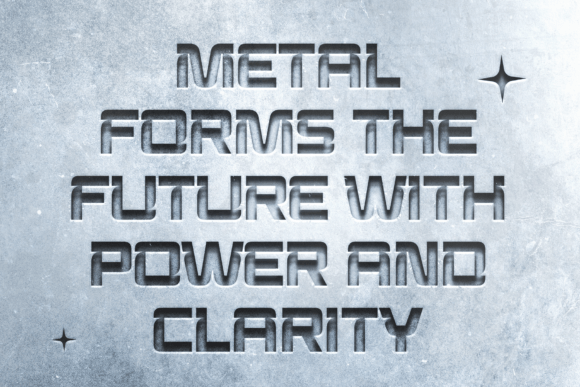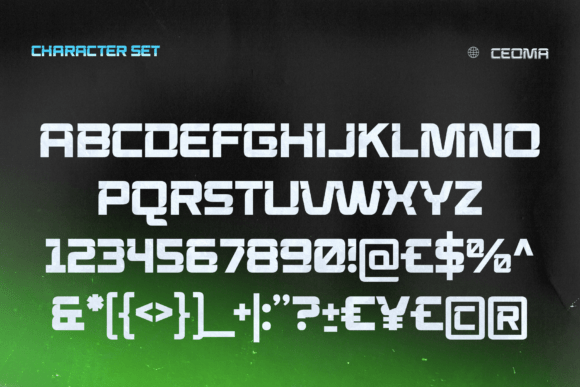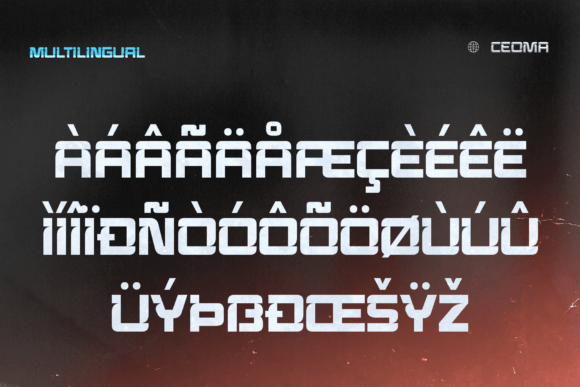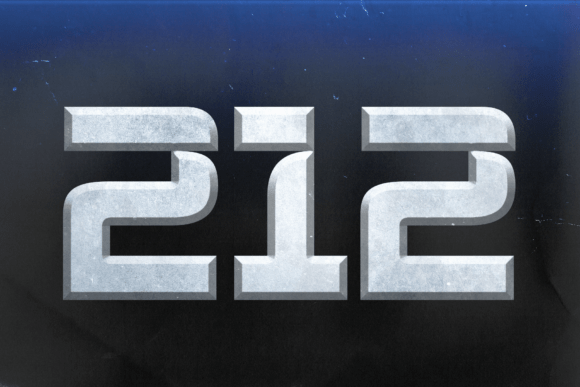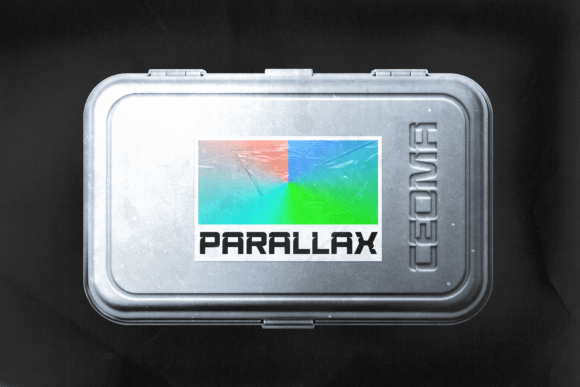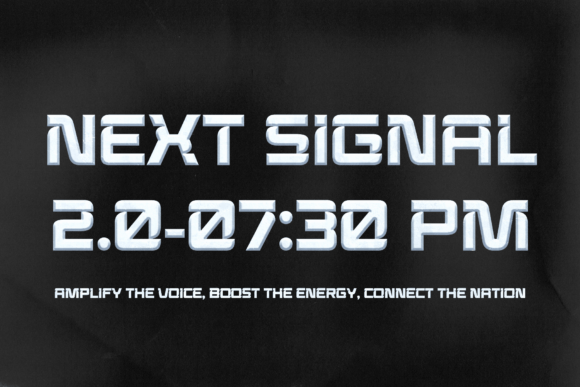
Unlock the Future of Design with Ceoma Font
Have you ever stared at a blank canvas, eager to bring a futuristic concept to life? The blank page can be intimidating, but with the right tools, the possibilities become endless. This is where Ceoma Font comes in – a game-changing, ultra-modern typeface that’s engineered to propel your designs into the next dimension.
Designed to evoke the Y2K aesthetic, industrial sci-fi vibe, and contemporary tech wave, Ceoma Font is a powerhouse choice for designers who want to command attention and push the boundaries of creativity. With its bold, heavy blocks and precise architectural inner cuts, this modular font offers total creative control across various character variations, making it an absolute must-have for futuristic gaming interfaces, electronic music poster artwork, and more.
Whether you’re a seasoned designer or just starting out, Ceoma Font is an invaluable addition to your toolkit, providing the perfect blend of style and functionality to take your designs to the next level.
Ceoma Font Key Features
- Font Family: Ceoma is a sans-serif font family, designed for digital use.
- Unique Characteristics: Ceoma features a clean, modern design with geometric shapes and subtle rounded edges, making it suitable for digital interfaces, branding, and publishing.
Designer Review: Ceoma Font
As a designer, I was excited to try out the Ceoma Font, and overall, I have mixed feelings about it. ✨ One thing I like about Ceoma is its unique, modern aesthetic, making it perfect for projects that require a touch of elegance. The font’s geometric shapes and clean lines give it a sophisticated look that works well in various contexts.
However, I’ve noticed a few limitations that prevent me from fully embracing Ceoma. ⚠️ First, the font’s weight range is quite limited, making it difficult to achieve the desired level of boldness or subtlety. Additionally, the font’s kerning could be improved, particularly for words that start with certain letters.
- ✨ Unique, modern aesthetic
- ✨ Perfect for projects that require elegance
- ⚠️ Limited weight range
- ⚠️ Kerning could be improved
Overall, I think Ceoma Font is a solid choice for designers who want to add a touch of sophistication to their projects. However, it may not be the best fit for projects that require a high level of customization or flexibility. With some minor tweaks, Ceoma has the potential to become a top-tier font. Until then, I’d recommend it for specific use cases where its unique aesthetic shines through.
Tips for Getting the Most Out of Ceoma Font
Use Ceoma Font for titles, headings, and emphasis to add a touch of elegance and sophistication to your designs.
Experiment with different font sizes and styles to create visual interest and hierarchy in your designs.
Use Ceoma Font for:
- Editorial and publishing designs
Alternatives to Ceoma Font
Open Sans is a modern sans-serif font designed by Steve Matteson. It is suitable for digital interfaces, web pages, and documents where a clean and readable font is required. Open Sans is a great alternative to Ceoma Font as it offers a similar feel but with more versatility and a wider range of applications.
Lato is a sans-serif font designed by Łukasz Dziedzic. It is a great choice for designs that require a clean and elegant look. Lato is similar to Ceoma Font in its modern feel, but it has a more refined and sophisticated appearance.
Montserat is a sans-serif font designed by Julieta Ulanovsky. It is inspired by the urban landscape of Buenos Aires and is suitable for designs that require a strong and modern feel. Montserrat is a great alternative to Ceoma Font as it offers a similar edgy feel but with a more aggressive and urban appearance.